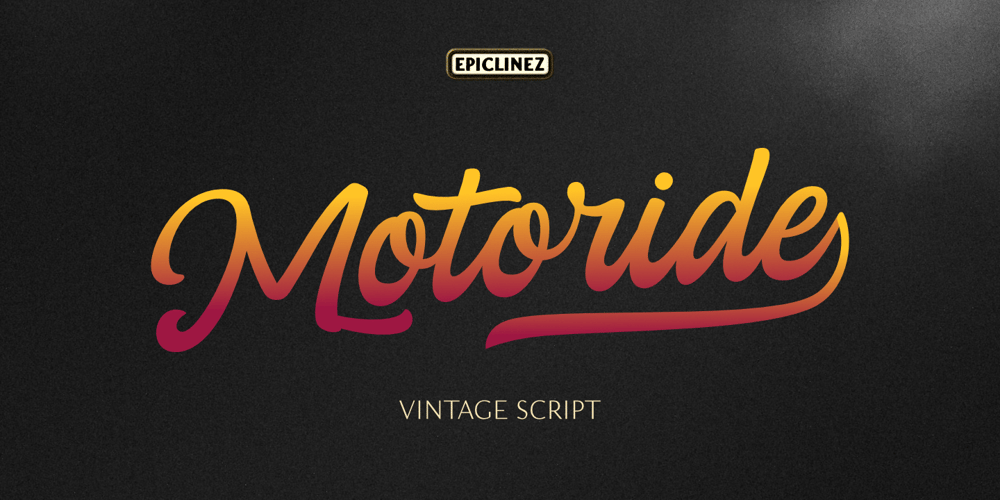
Motoride Font Family was designed by Aldy Sidik and published by Epiclinez. Motoride contains 2 styles and family package options. Motoride is an authentic handcrafted lettering that transformed into a font. It was inspired by the world of custom motorcycles.It’s vintage style is suitable for every design which needs a timeless typeface, such as logotype, apparel, branding, packaging, advertising, Instagram quotes and more! This font features a wealth of OpenType features including alternate glyphs, ligatures, and swashes.This font is multi-language and also PUA encoded which means you can access all of the alternate glyphs with ease. We hope you will enjoy the font, please feel free to comment if you have any thoughts or feedback.